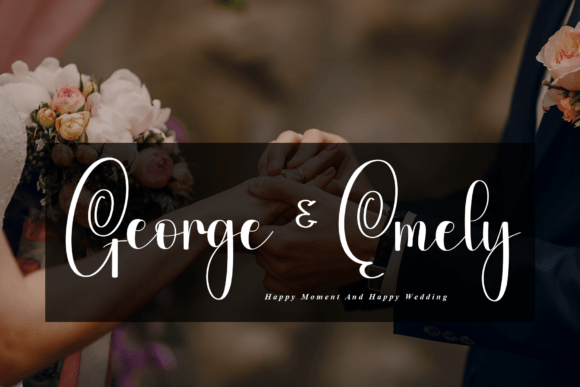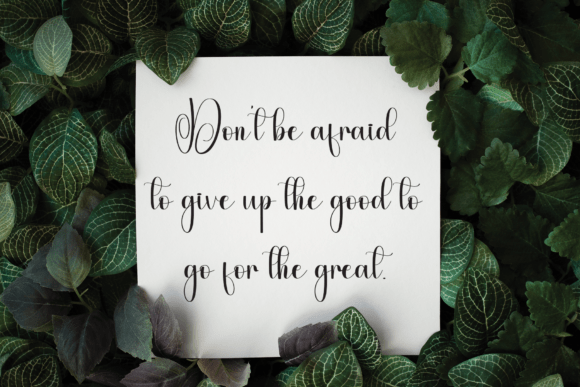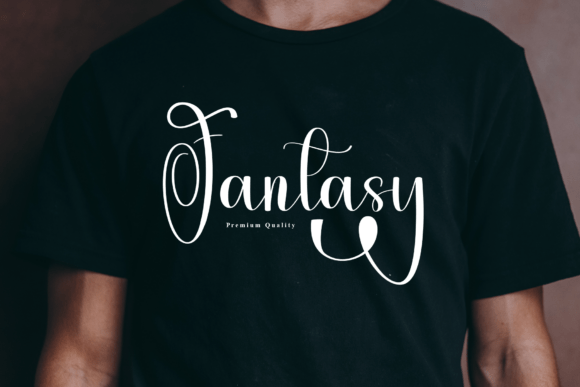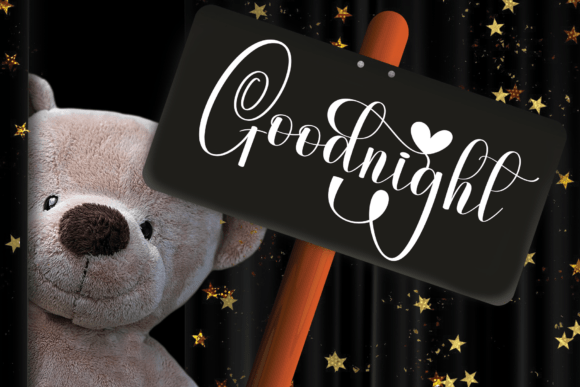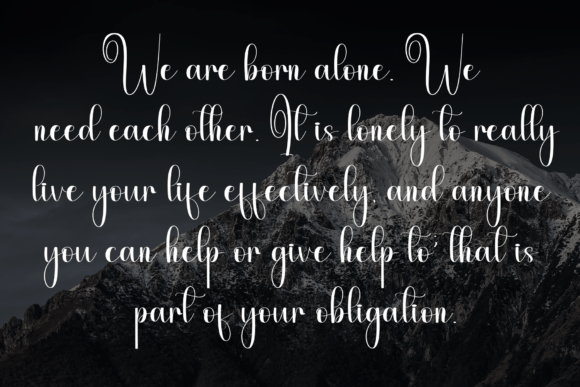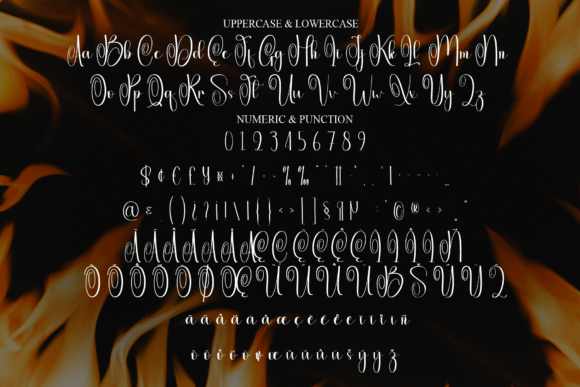
The Perfect Recipe for Unique Design
There’s something magical about holding a pen and letting your creativity flow onto paper. As designers, we’ve all been there – staring at a blank canvas, trying to bring a concept to life. And sometimes, it’s the smallest details that make all the difference. For me, it was the discovery of the Baking Font, a stylish handwritten script that added a touch of elegance to my designs.
This beautiful font exudes sophistication and charm, making it the perfect addition to any project. Whether you’re designing invitations, branding, or social media graphics, the Baking Font brings a sense of warmth and creativity to your work. Its fluid strokes and natural flow create a captivating look that’s sure to impress. By incorporating the Baking Font into your designs, you’ll add a personal touch that sets you apart from the crowd.
Baking Font Key Features
Baking Font Review
I recently had the chance to work with the Baking Font, and I must say it’s a delightful addition to any design project. ✨ One of the things that immediately caught my attention was the font’s versatility – it’s perfect for creating a warm and inviting atmosphere, whether it’s for a bakery, a food blog, or even a cooking show.
Here are some of the things that work well with the Baking Font:
- ✨ Beautiful cursive script that adds a touch of elegance to any design
- ✨ Excellent for use in headings and titles, as it’s easy to read and understand
- ✨ A wide range of characters, including punctuation and special symbols
- ⚠️ Limited support for non-English languages
- ⚠️ Some characters may not display correctly in certain operating systems or devices
- ⚠️ Not suitable for use in body text, as it’s a bit too ornate and distracting
Overall, I’d say the Baking Font is a great choice for designers who want to add a touch of warmth and personality to their projects. While it’s not perfect, its strengths far outweigh its limitations, and I’d definitely recommend it to anyone looking for a beautiful, cursive font.
Use Baking Font for baking-related projects, such as recipes, food blogs, or cooking tutorials.
Baking Font is commonly used for:
Recipe cards and cookbooks
Food blogs and cooking websites
Cooking tutorials and instructional videos
Bakery and restaurant menus
Alternatives to “Baking Font” for Designers
Great Vibes is a beautiful, handwritten font perfect for creating a warm and inviting atmosphere in designs. It’s ideal for use in branding, logos, and marketing materials that require a touch of elegance and sophistication.
Compared to Baking Font, Great Vibes has a more refined and sophisticated look, making it suitable for a wider range of design projects.
Dancing Script is a lively and expressive font that’s perfect for adding a touch of playfulness and whimsy to designs. It’s ideal for use in social media graphics, blog posts, and other content that requires a fun and engaging tone.
Compared to Baking Font, Dancing Script has a more dynamic and energetic feel, making it suitable for projects that require a sense of movement and playfulness.